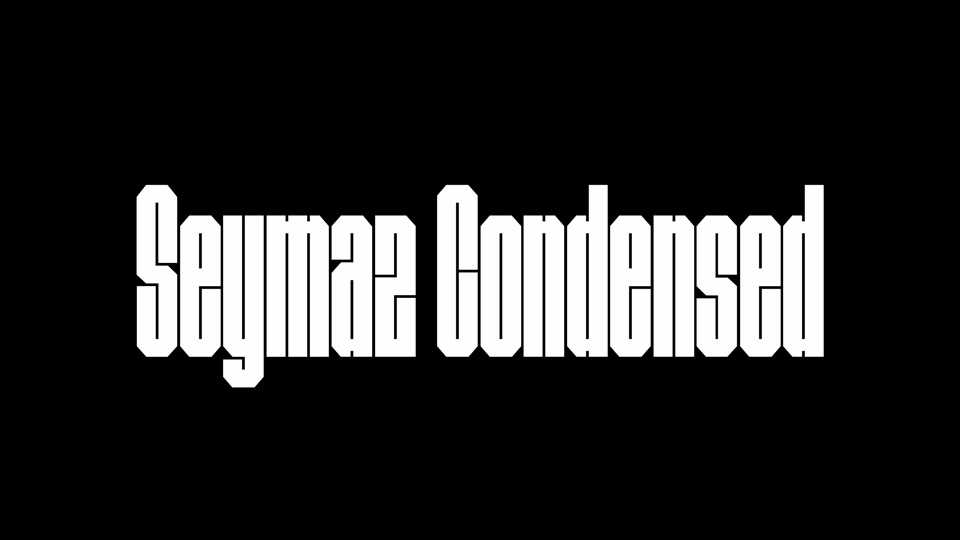
Seymaz Condensed Font Family › Fontesk – Download Grátis
Download Seymaz Condensed typeface, a display font family in 16 styles, including and variable font. Seymaz Condensed is inspired by ‘Grecian’ typefaces examples from the late XIXth century.
Designer: Mateo Broillet